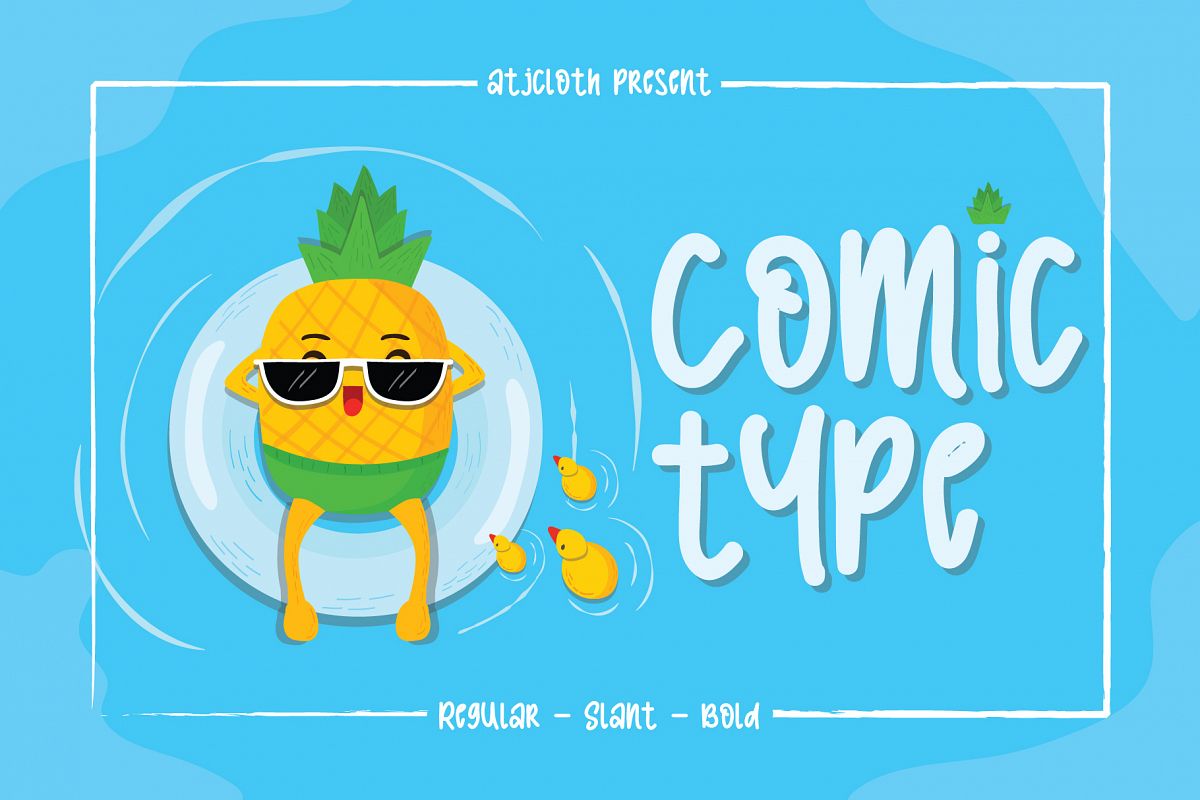
Comic Type
Comic Type Regular
Comic Type Slan
Comic Type Bold
Comic Type comes in three styles with three weights each. Its characters have been drawn by hand to give them a warm and authentic look. Comic Type is perfect for comic text, baby products, children's fashion, baby store logo and creative design other children.
Comic Type Features :
• Numerals & Punctuations
• Accents (Multilingual characters)